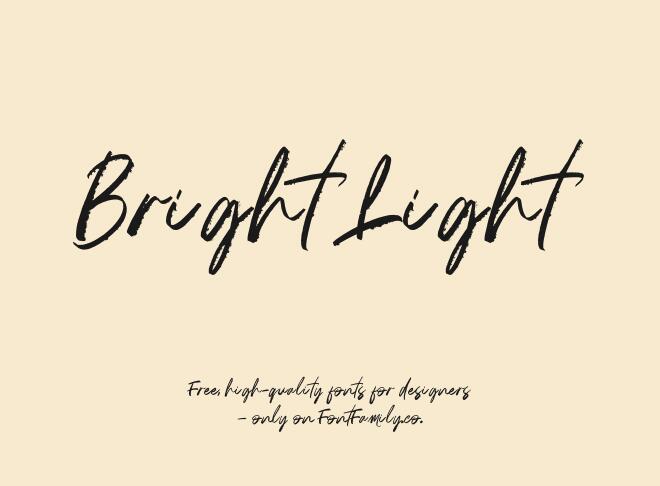
Bright Light Font
Bright Light Font, designed by Creative Foundry, is a playful, modern display font that brings a spark of energy to any design project. Released in 2019, this font is a perfect blend of contemporary design aesthetics and playful vibes. With its uniquely crafted characters, Bright Light Font stands out in headlines, posters, logos, and branding projects. It can be paired with minimalistic sans-serif fonts to create a balanced design. Its bold and vibrant style is designed to catch the eye, making it a great choice for projects aiming to make a strong visual impact. Bright Light Font is free for personal use, allowing designers to experiment with its unique style without any restrictions.